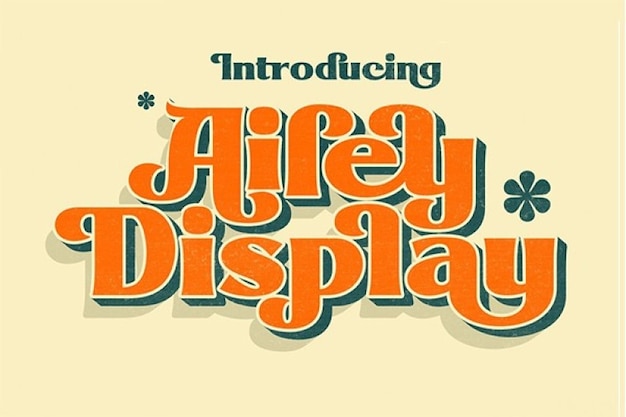
Ailey Display
Ailey Display Font
Ailey Display is a vintage font that will send you back to the sixties. Its retro features will give your project a classic style. You can use this font to create invitation cards, posters and much more. Download it now and start creating!